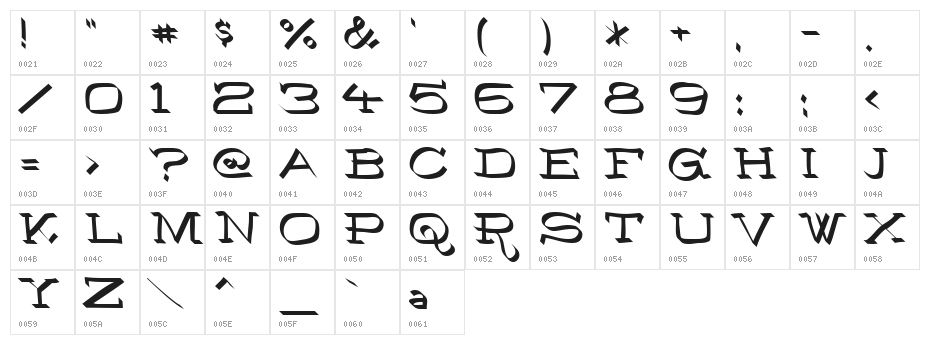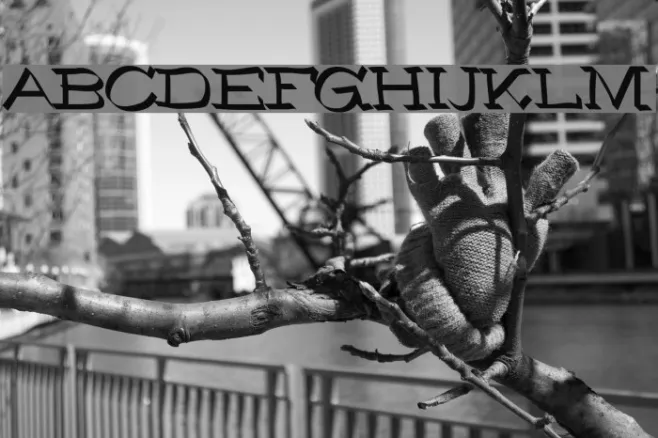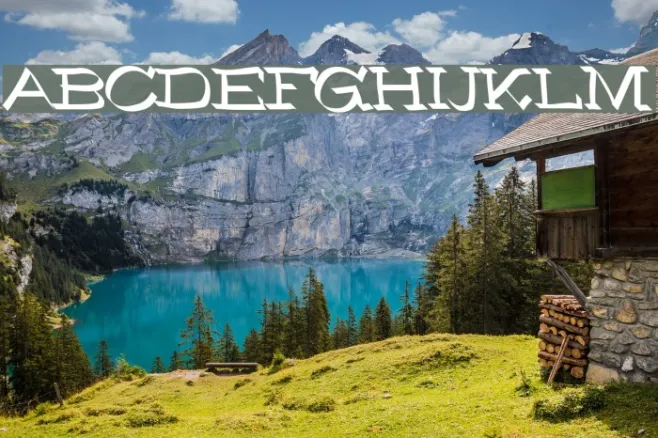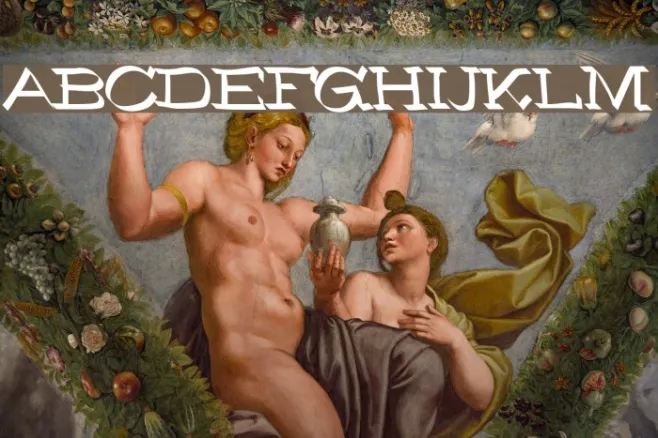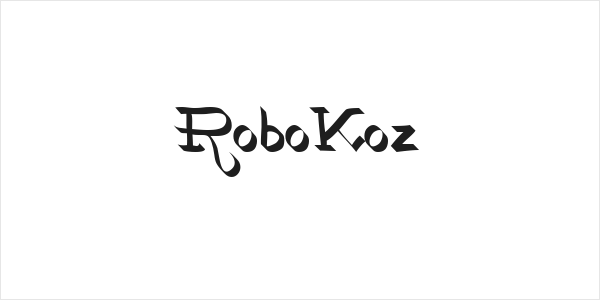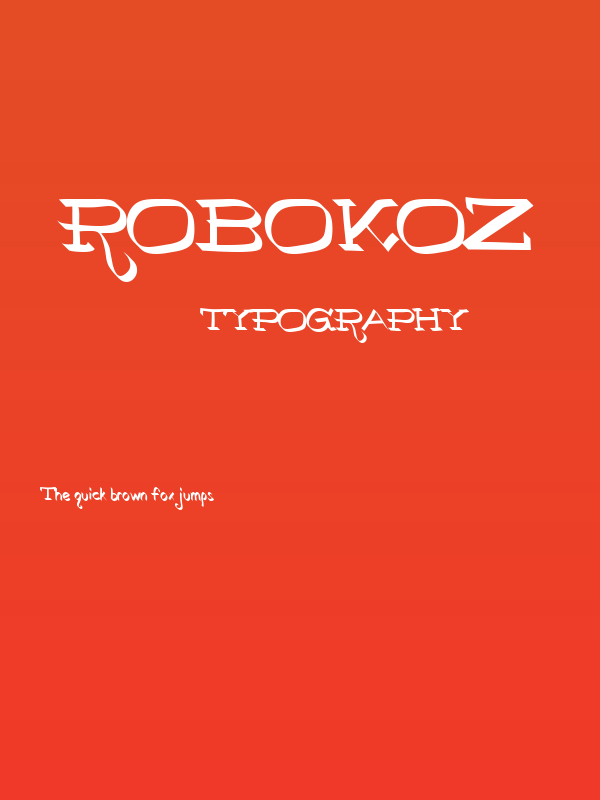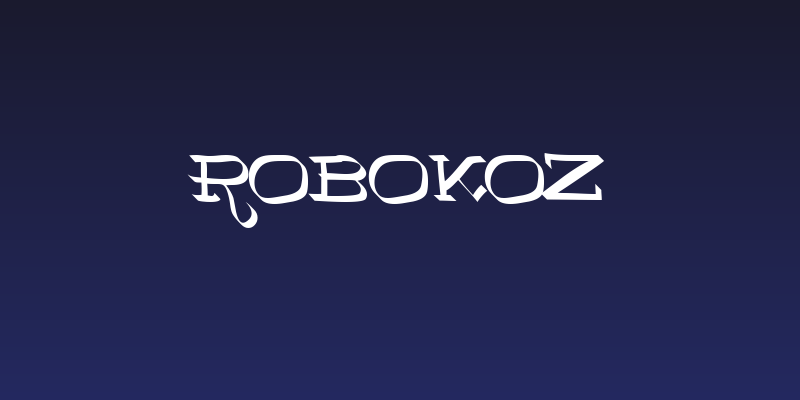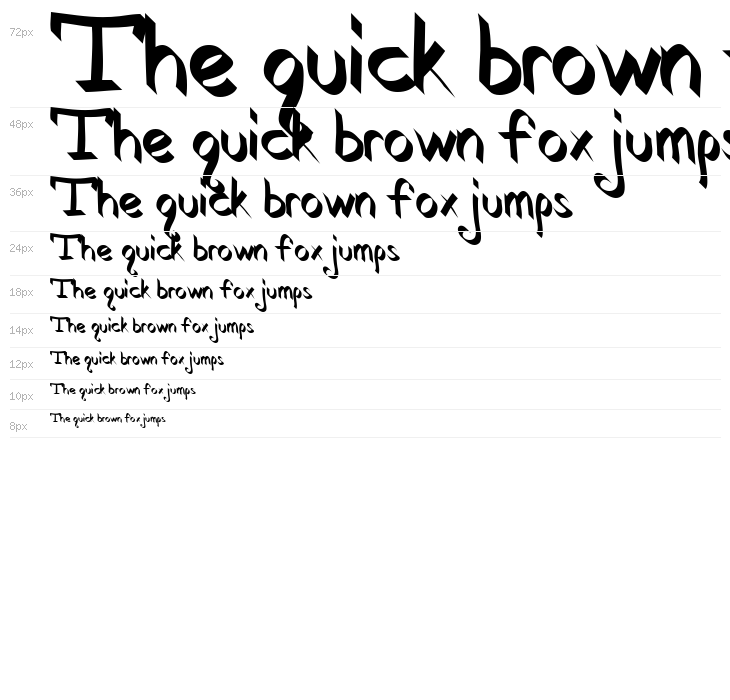
RoboKoz Font
RoboKoz Description
This font features a bold and dynamic design with sharp, angular edges and a futuristic aesthetic. The uppercase letters are characterized by their geometric shapes and pointed serifs, giving them a distinct and edgy appearance. The lowercase letters maintain a similar style, with exaggerated curves and unique forms that add to the font's modern and unconventional look. The numerals are consistent with the overall design, featuring sharp angles and a bold presence. Special characters are creatively integrated, maintaining the font's cohesive style. This font's striking appearance makes it suitable for projects that require a bold and attention-grabbing typeface.
| Proposed Projects | Ideal for sci-fi movie posters, video game titles, tech company logos, and edgy branding materials. |